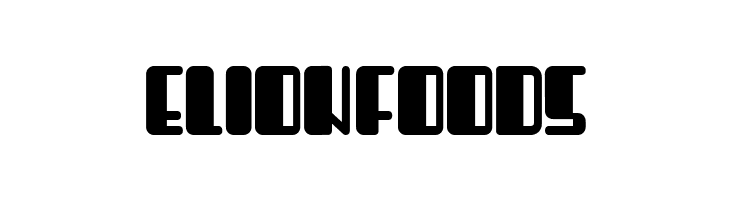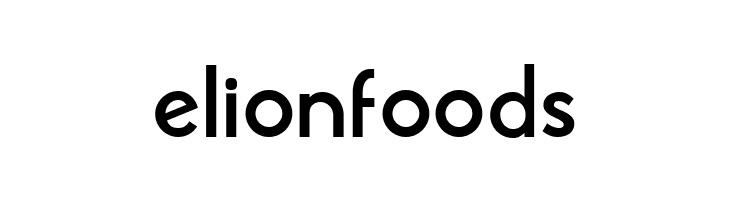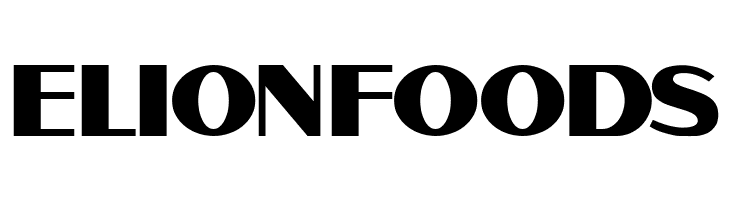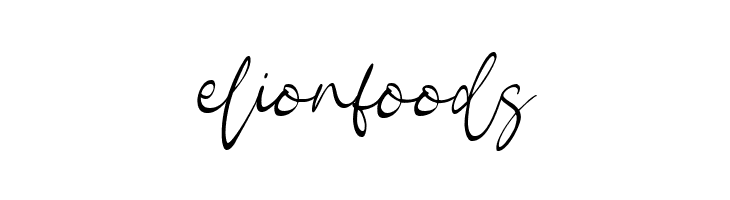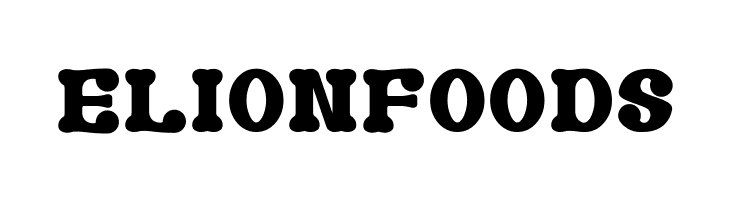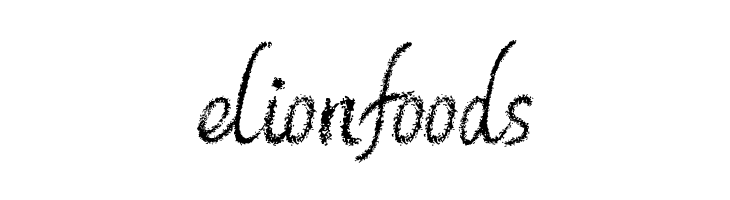
• Objective Book Regular
A bold, geometric font with a modern, blocky style.
• Odense Book Regular
A bold, high-contrast font with a modern and assertive style.
• Official Book Italic
A modern, italic font with clean lines and excellent readability.
• Official Book Regular
A modern, geometric sans-serif font with a clean and balanced design.
• Old Book__G
A bold, decorative font with vintage flair and pronounced serifs.
• Old Bookshop
( Poemhaiku - Huong Le Thi Thu - www.behance.net/poemhaiku )
A textured, handcrafted font with a chalk-like appearance.
• Old Bookshop HK
• Olde Wampum Belt
( JMRBooks Fonts )
A decorative font with a mosaic-like, grid-based design inspired by traditional beadwork.
• Open Book
( Fonts by olivetype )
A flowing, elegant script font with a natural handwriting style.
• OPTIBarMay-Book
A classic serif font with elegant and balanced characters.